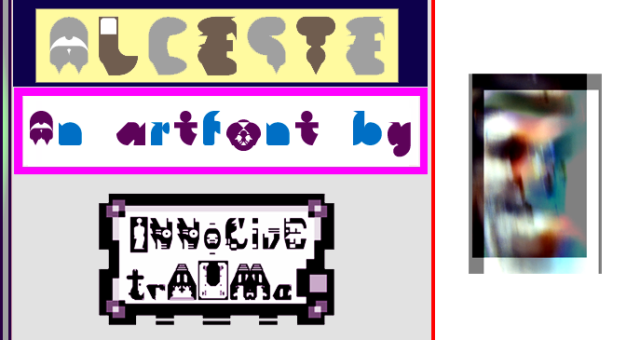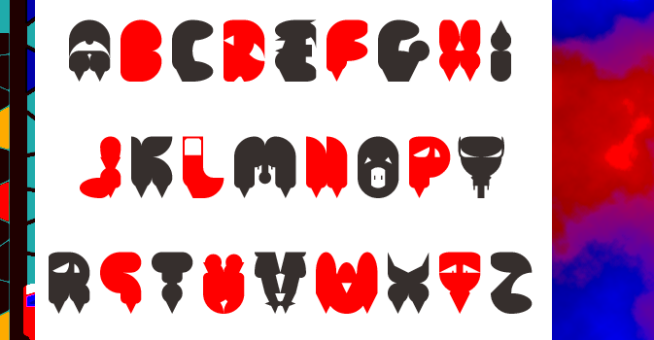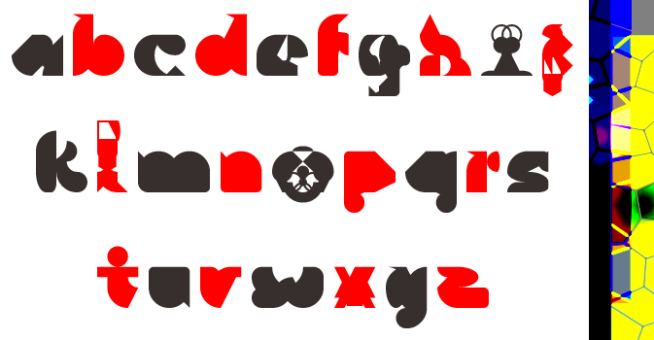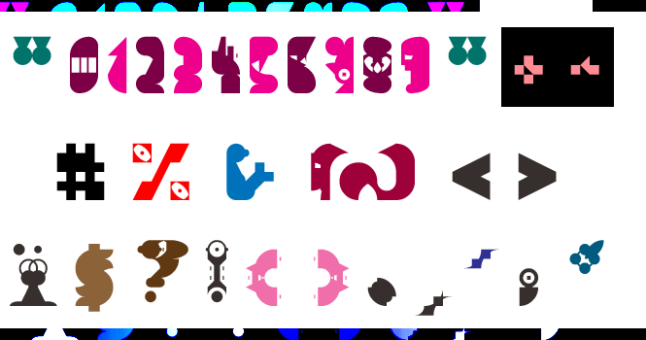
trAUMa 45 / Alceste
"Alceste", like all the "trAUMa" series, works at the frontier between Art & Type Design, Figuration & Abstraction, each font is a comprehensive world in which every glyph is a "living" entity. But put together they can produce your messages in the most accurate way.